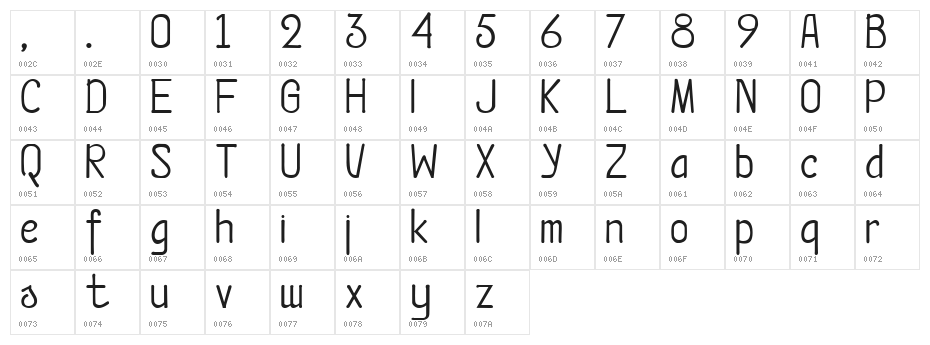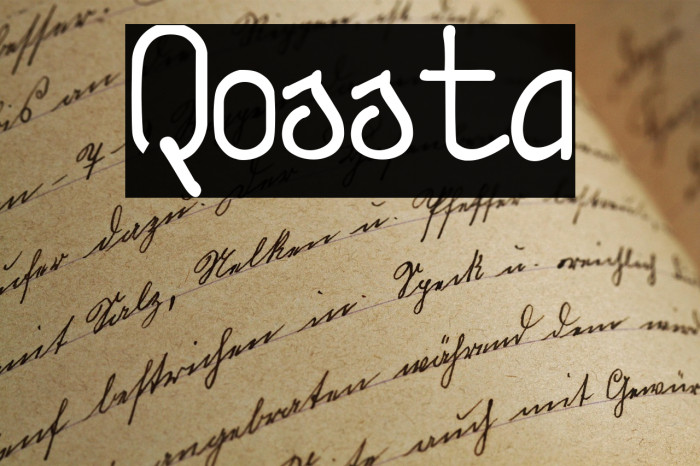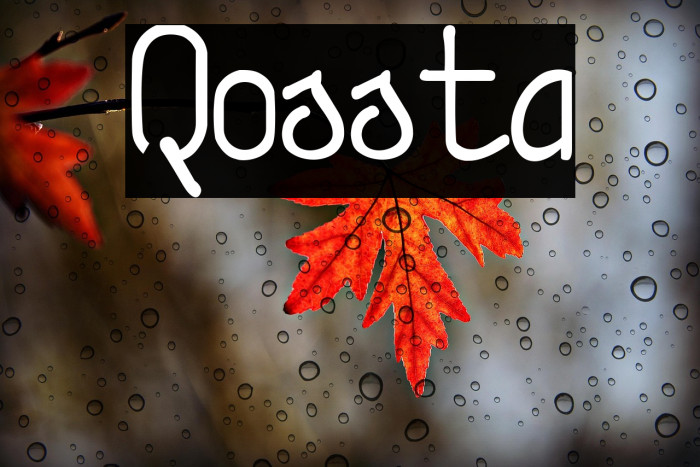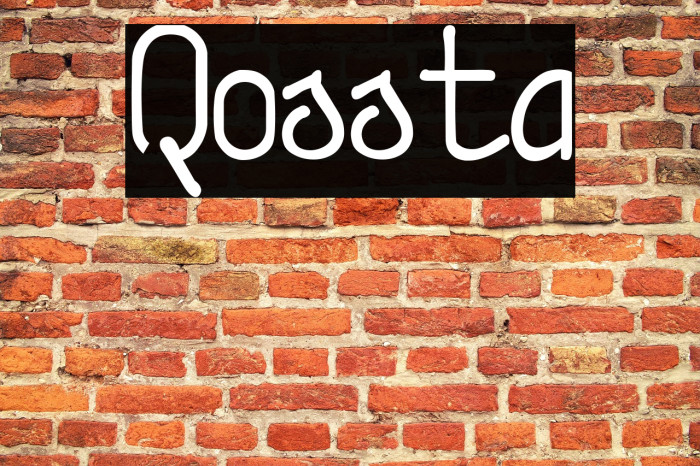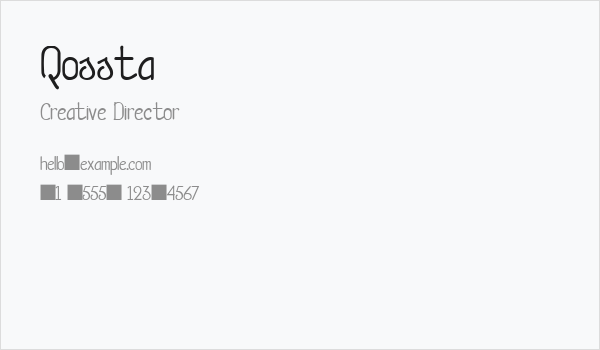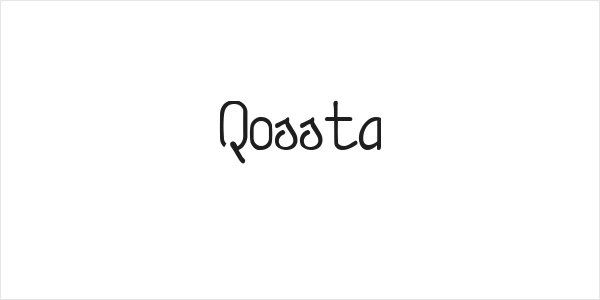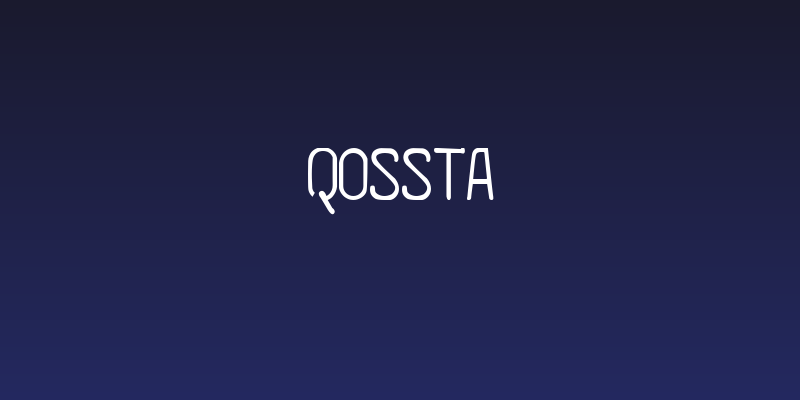
Qossta Font
Qossta Description
This font features a playful and rounded design, characterized by its smooth curves and consistent stroke width. The letters are tall and narrow, giving it a unique and modern appearance. The uppercase letters maintain a uniform height, while the lowercase letters have a slightly whimsical touch with their rounded edges. The numbers follow the same style, ensuring consistency across the font. The overall look is clean and approachable, making it suitable for a variety of design projects. The font's simplicity and clarity make it easy to read, while its distinctive style adds a touch of personality.
| Use Case | Headlines, Logos, Casual Text |
| Proposed Projects | Ideal for children's books, playful branding, casual invitations, and modern web design. |